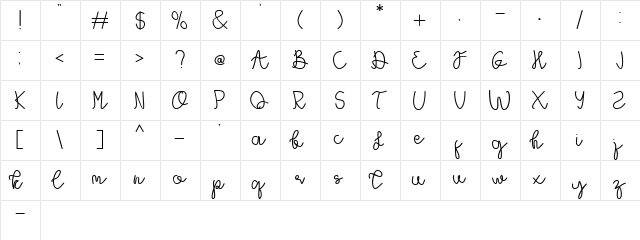
eliya Regular
| Designer | Muksal Creative. 2019 |
Design Context for eliya Typeface
eliya is a composed and adaptable typeface that performs quietly and consistently across a wide range of design contexts.